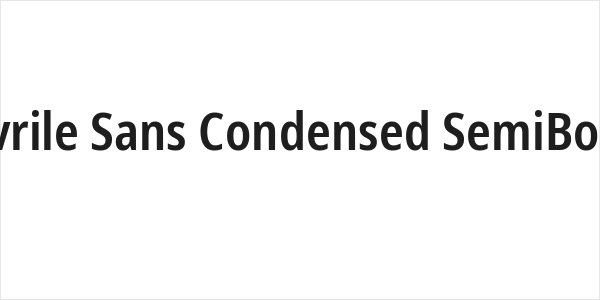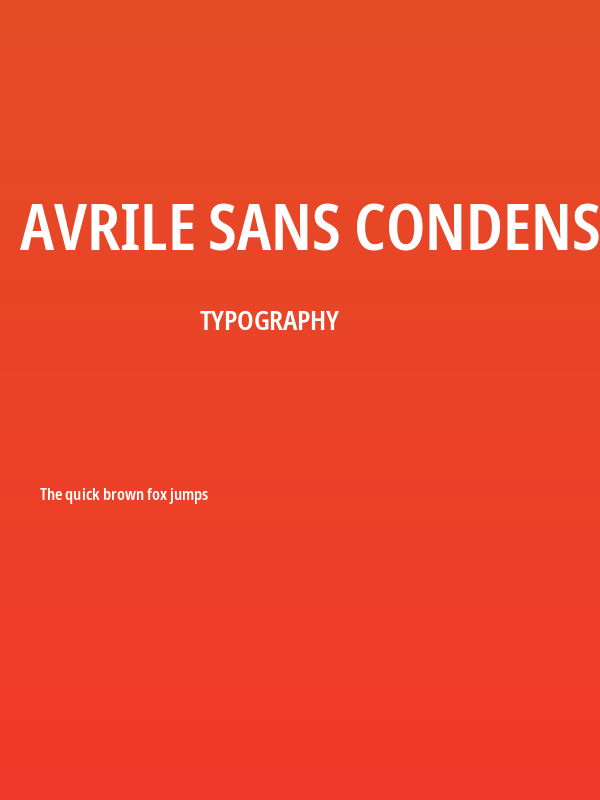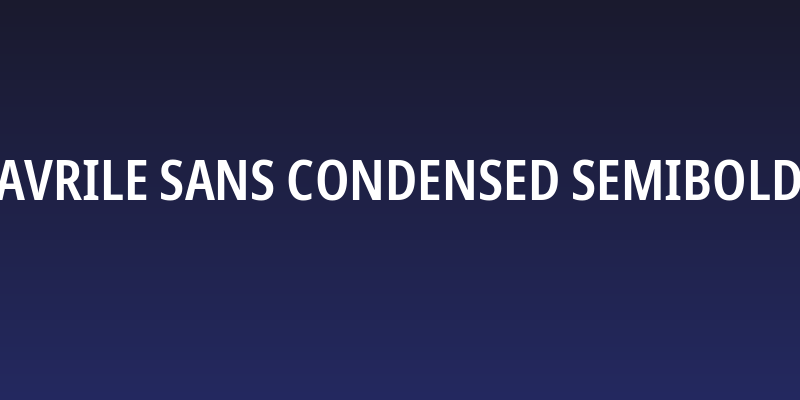
Avrile Sans Condensed SemiBold Font
Avrile Sans Condensed SemiBold Description
This font features a clean and modern sans-serif style with a condensed width, making it ideal for space-saving designs. The characters are bold, providing a strong visual impact while maintaining readability. The uniform stroke width across the letters gives it a consistent and professional appearance. The font includes a full set of uppercase and lowercase letters, numbers, and a variety of special characters, making it versatile for various design needs. Its simplicity and clarity make it suitable for both digital and print media.
| Proposed Projects | Ideal for branding, advertising, headlines, and editorial design where space is limited. |